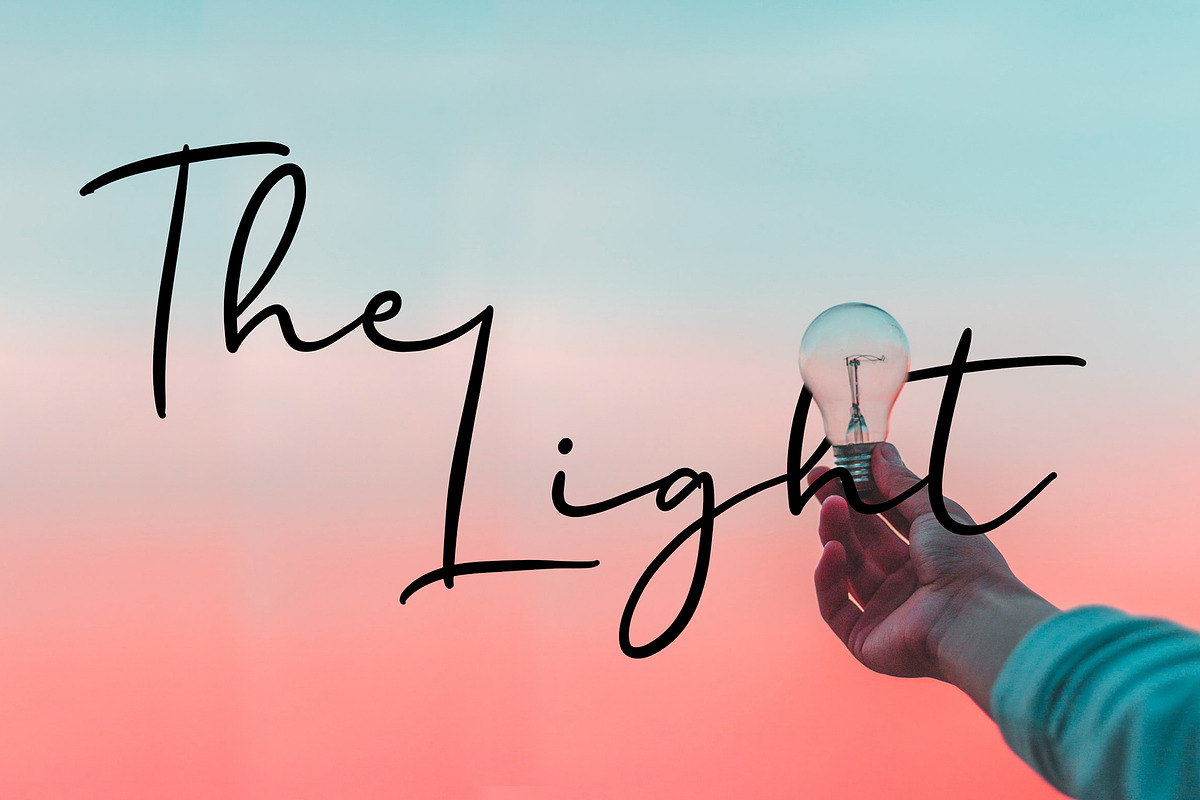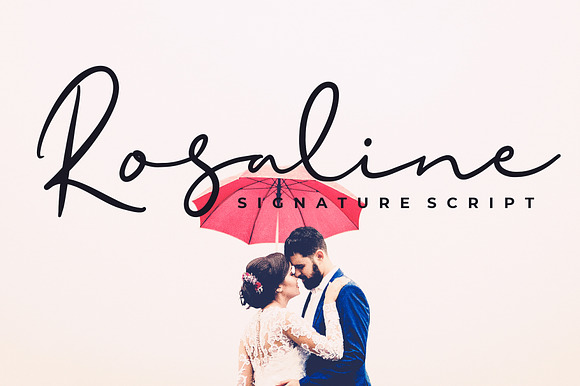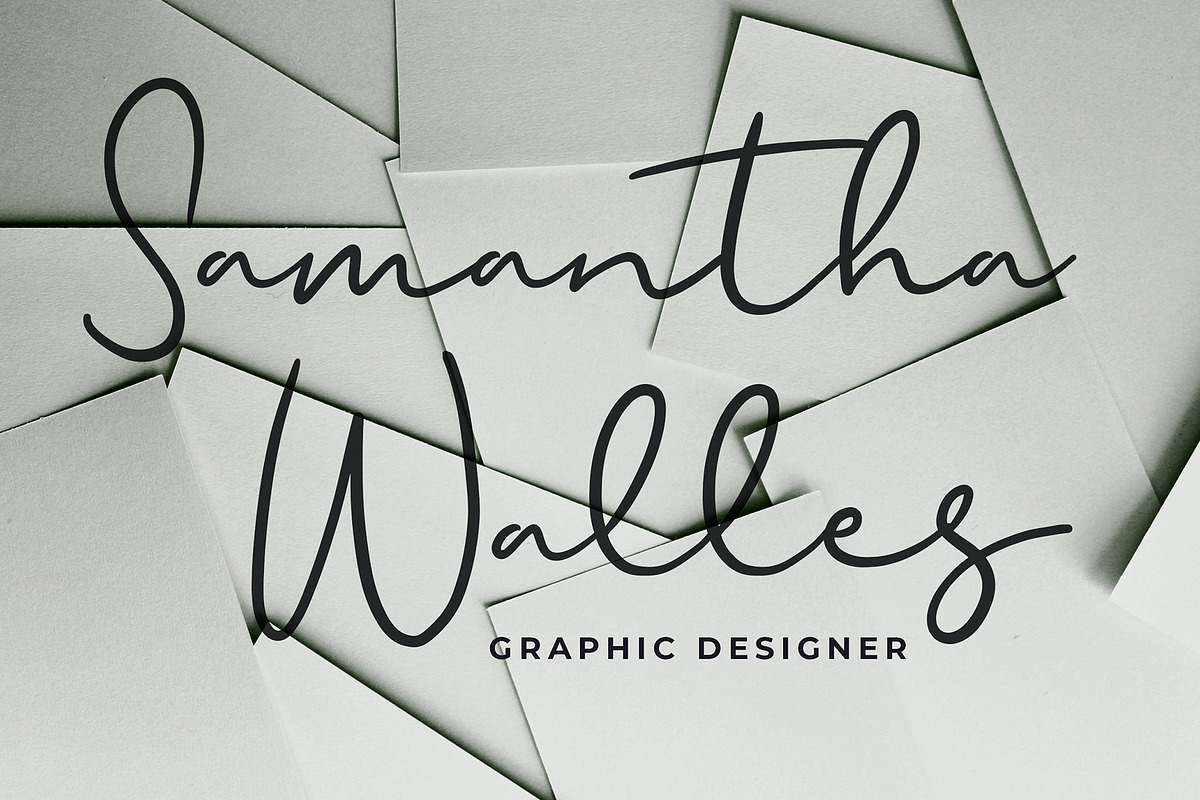
Rosaline Signature Script Font
Rosaline Signature Script can be used for various purposes such as logos, wedding invitations, t-shirts, letterheads, signage’s, labels, and much more!
Why Rosaline Signature Script Font is worth a look
Rosaline Signature Script Font by Formatika Studio fits naturally into Branding, posters, packaging, typography.